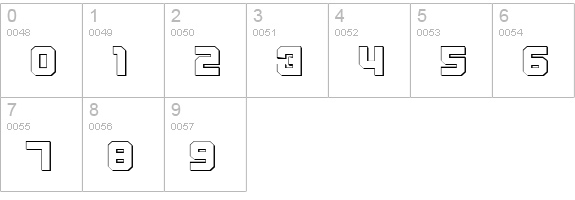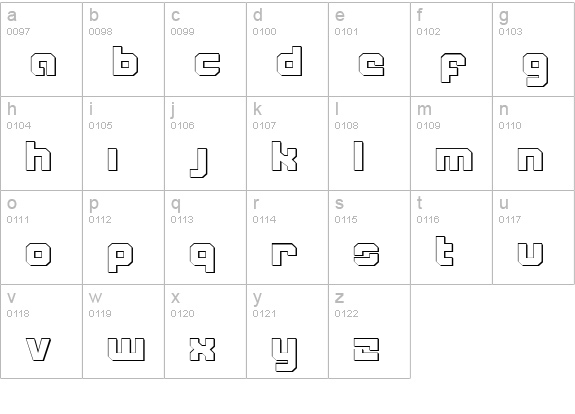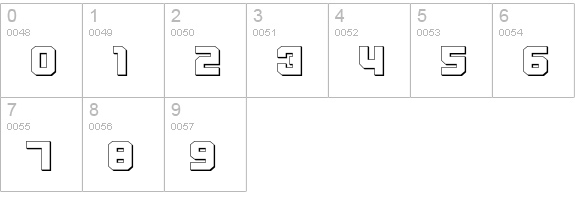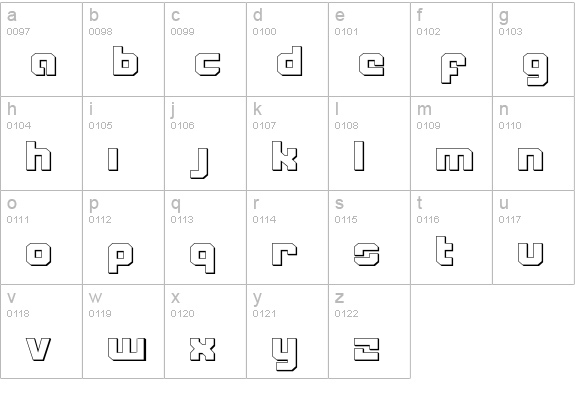
Introducing Weaponeer Shadow font, a modern and sleek typeface that exudes power and sophistication. This unique font is perfect for adding a touch of mystery and intrigue to your designs. With its sharp edges and bold lines, Weaponeer Shadow font commands attention and demands to be noticed. What's more, Weaponeer Shadow font is available for free download at FontsMarket.com. Whether you're working on a graphic design project, creating a logo, or designing a poster, this versatile font is sure to make a statement. Don't miss out on the opportunity to add Weaponeer Shadow font to your font collection today!